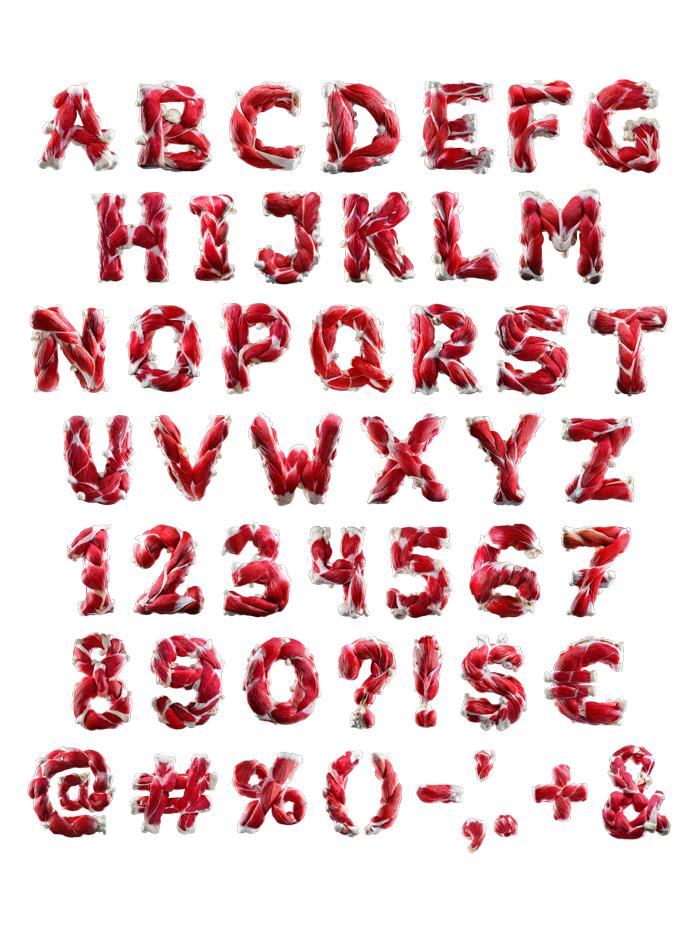
Muscles Font. A Bodybuilding Alphabet with Serious Definition
Muscles Font turns human anatomy into a powerful display alphabet, shaping every character from flexed arms, defined torsos, and sculpted muscle forms. Made for gym branding, fitness posters, sports graphics, energetic campaigns, and humorous headlines, this color OpenType font gives words a heavyweight appearance—without asking your layout to do a single push-up.
An Alphabet That Never Skips Leg Day
Muscles Font gives typography a full anatomical workout. Each letter is assembled from sculpted muscle forms, creating a surreal combination of human anatomy and bold display design. Defined contours and natural skin tones make the characters feel physical, while their exaggerated construction adds just enough comedy. It is difficult for a headline to look shy when every vowel appears capable of carrying the consonants home.
Where Muscles Font Works Best
This muscular alphabet is made for gym identities, fitness challenges, sports promotions, workout apps, supplement packaging, event posters, album artwork, and social media graphics. Large sizes reveal the anatomy and dimensional detail, so short messages produce the strongest visual punch. Combine it with simple backgrounds and restrained supporting type. For more object-based lettering with an unexpected personality, browse the Handmadefont collection.
Animated Muscles Font characters formed from red muscle tissue and white connective anatomy
Give Your Message a Healthy Flex
The trick is not to make every element compete with Muscles Font. Let one compact phrase take centre stage, then support it with clean typography and generous space. The font can feel motivational, theatrical, or knowingly ridiculous depending on the copy. Use it for a serious training slogan or a joke about opening a jar—the letters are equally qualified. If anatomy is your creative territory, pair the idea with the cerebral textures of Brain Font. One brings the brawn; the other remembers where the concept came from.
Muscles Font word FONT built from red muscle anatomy on a black OpenType product cover
Muscles Font letter E beside the complete red anatomical alphabet, numbers and punctuation on black
Muscles Font word RUN displayed across green, yellow and blue outdoor posters on a concrete wall
Muscles Font quote Sweat Builds What Excuses Destroy printed in red anatomical letters on white paper
Muscles Font word YES made from red muscle tissue on a black billboard mounted to a brick wall
Muscles Font quote Power Is Earned Never Given arranged in red anatomical letters on dark blue
Muscles Font letter S made from red muscle anatomy in a framed interior art poster
Muscles Font ampersand and question mark sculpted from red muscle tissue on a gray background
Muscles Font percent symbol made from red anatomical muscles printed on a navy T-shirt
Muscles Font letters ABCD and numbers 1234 made from red muscle anatomy on transparent background